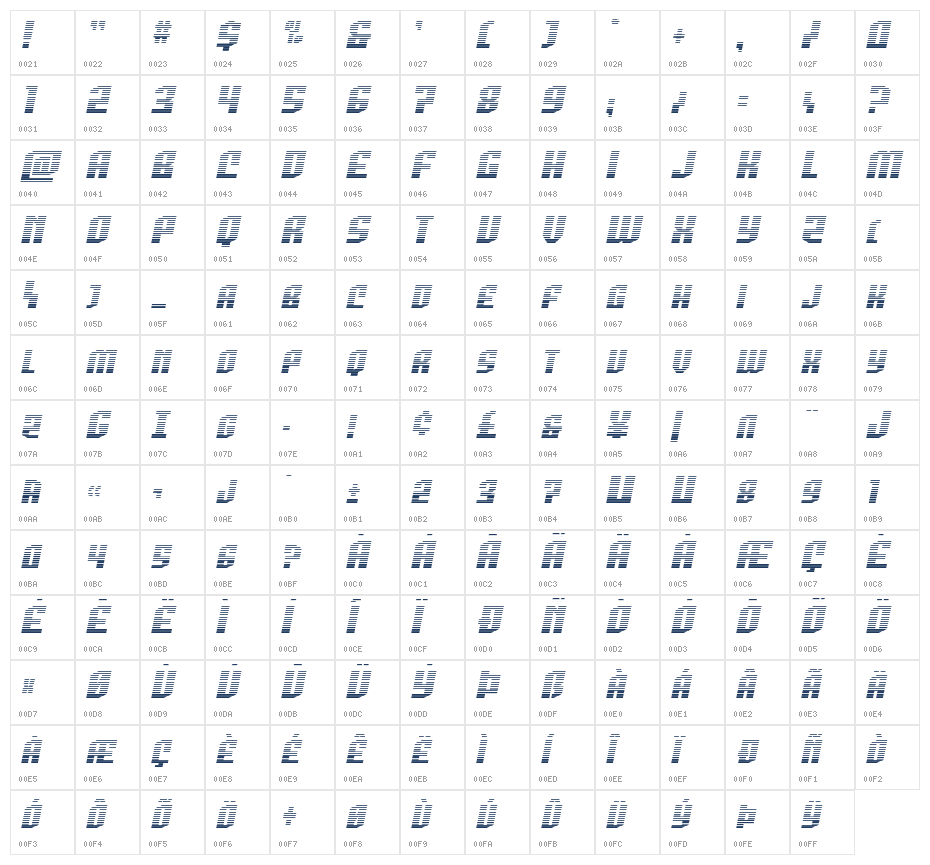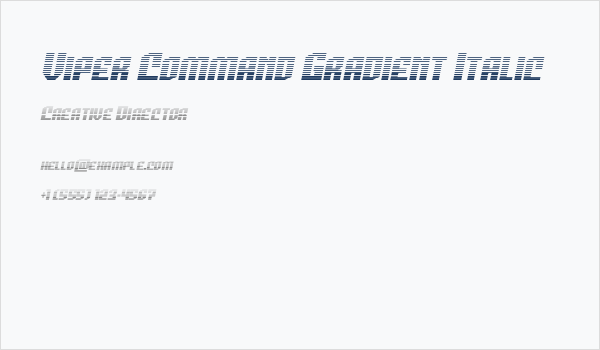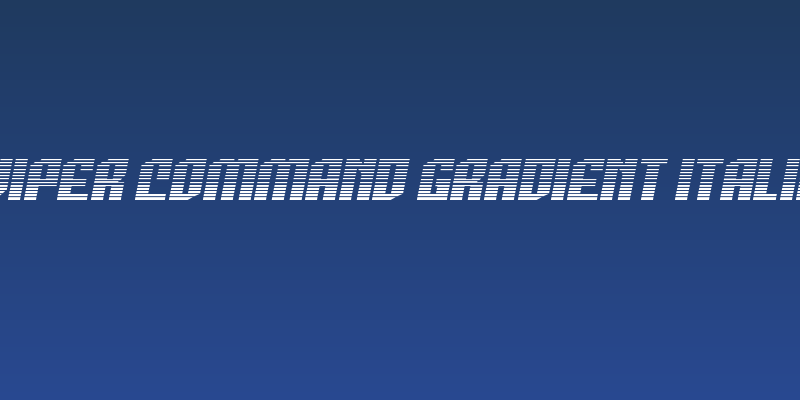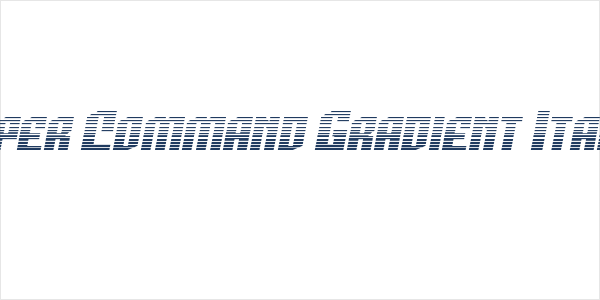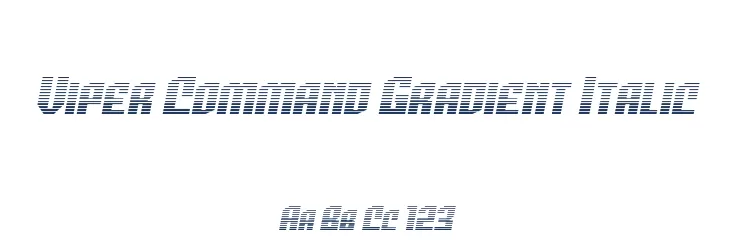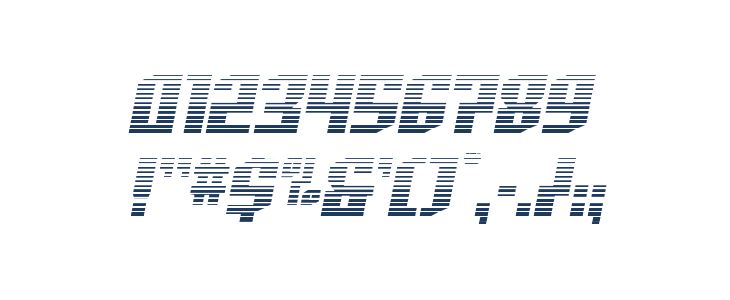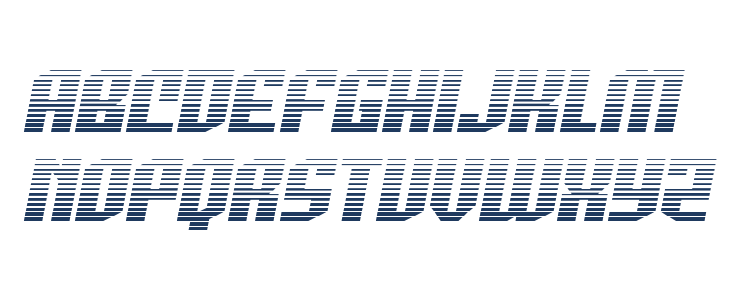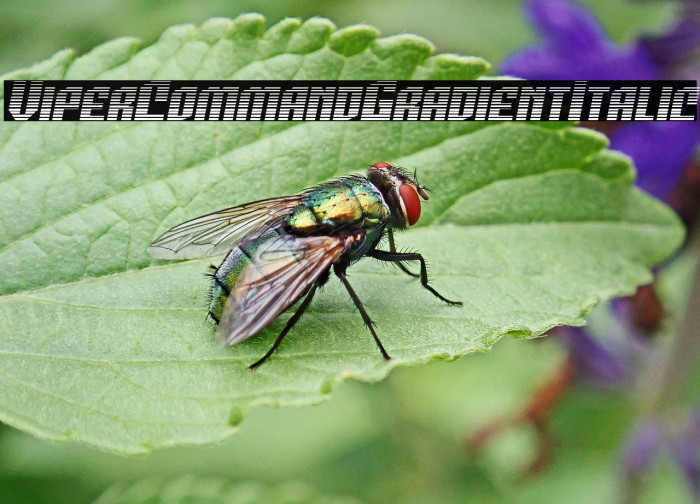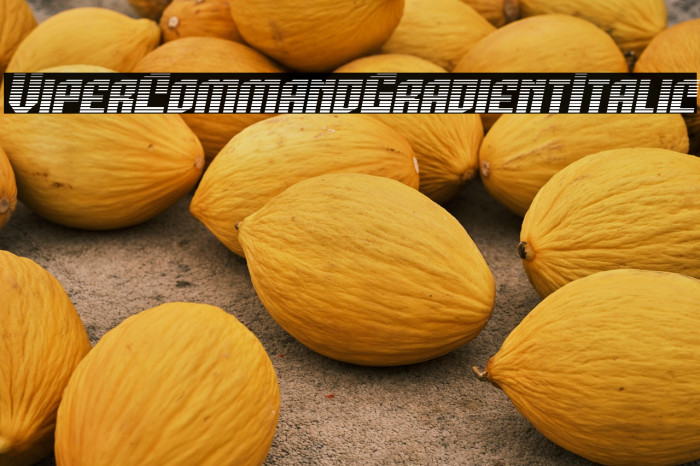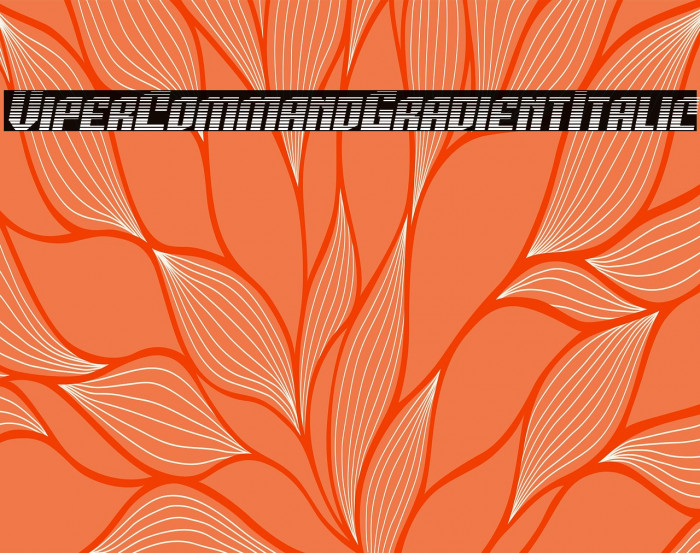
Viper Command Gradient Italic Font
Viper Command Gradient Italic Description
A stylized, italicized, striped sans-serif font with a dynamic, slanted appearance, featuring consistent line patterns across uppercase, lowercase, numbers, and symbols.
| Overall Style | Modern, Dynamic |
| Use Case | Headlines, Logos, Sports branding, Technology branding |